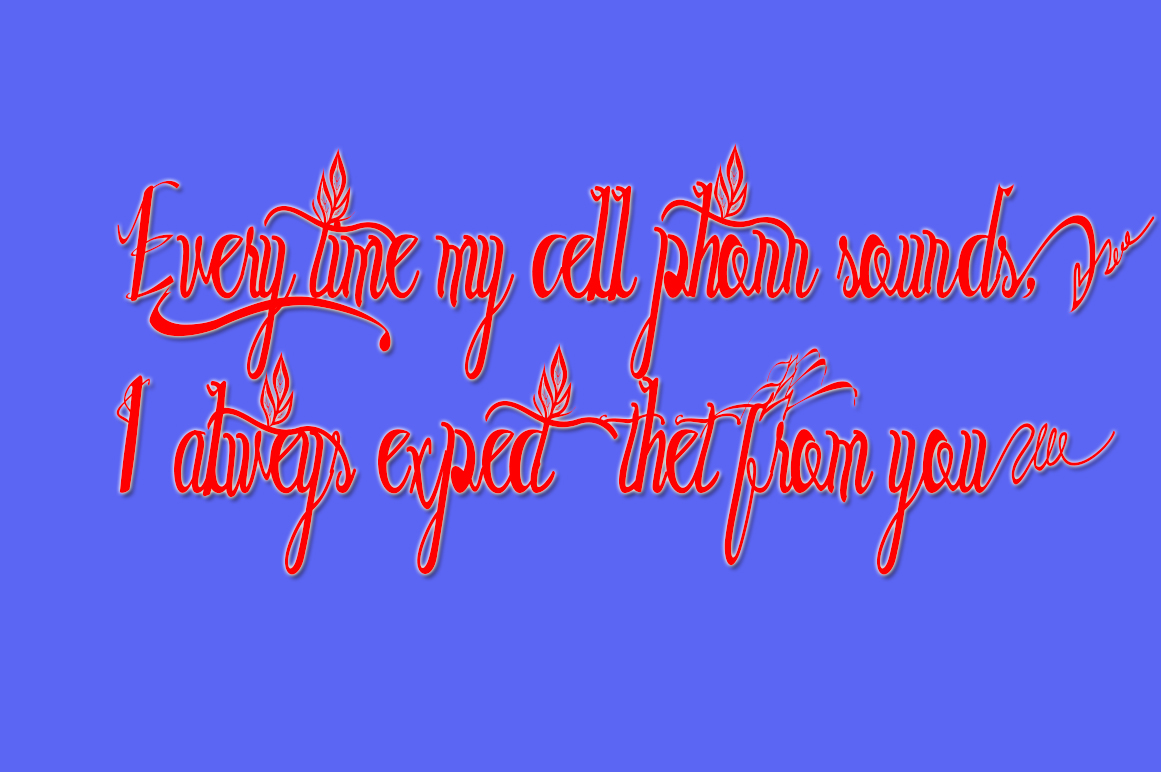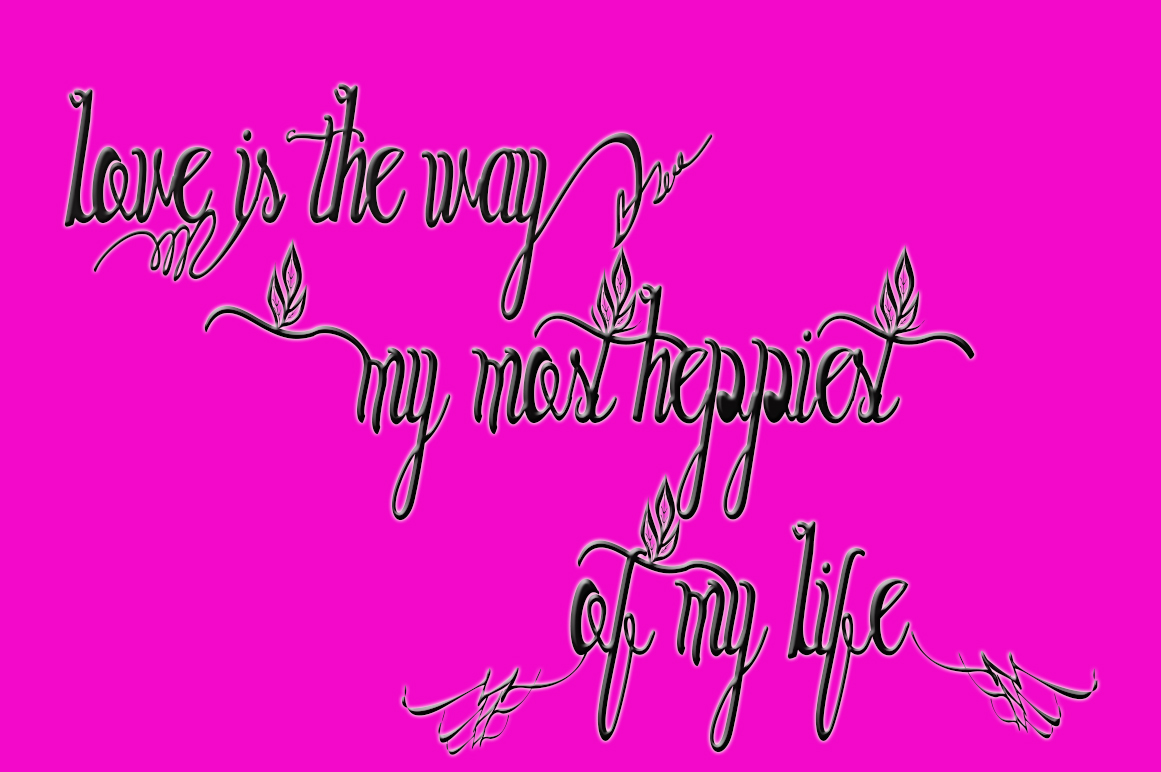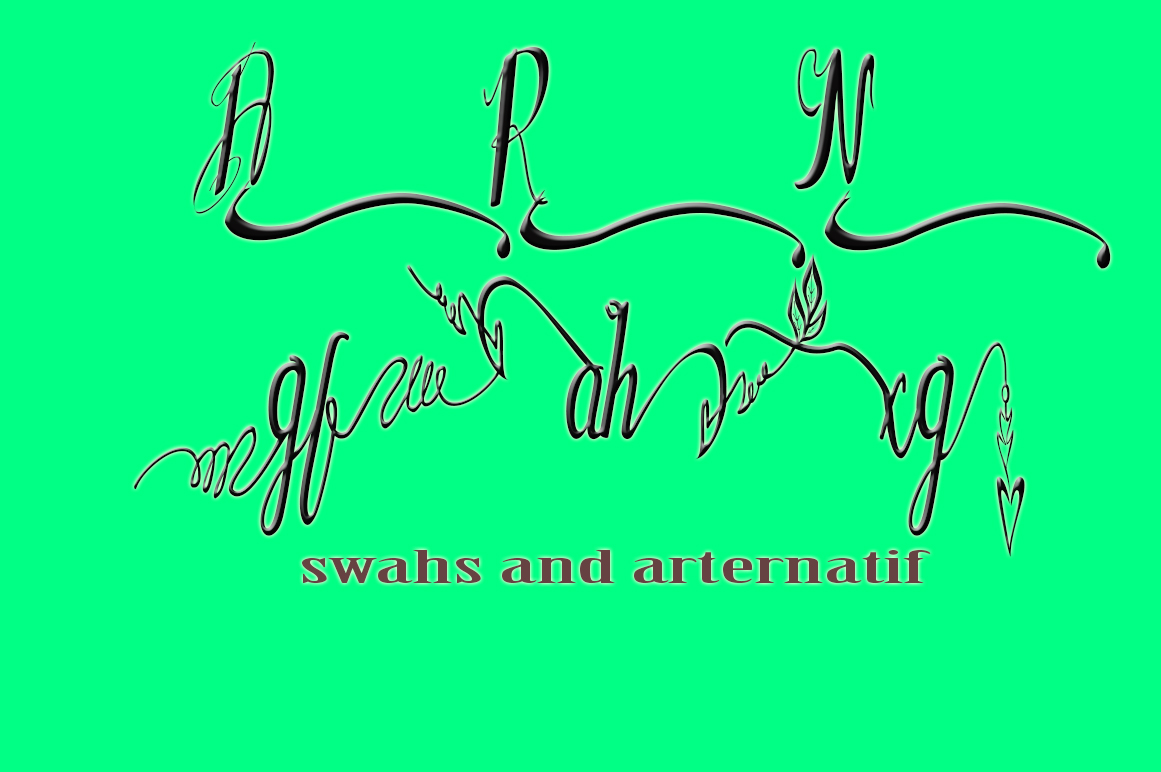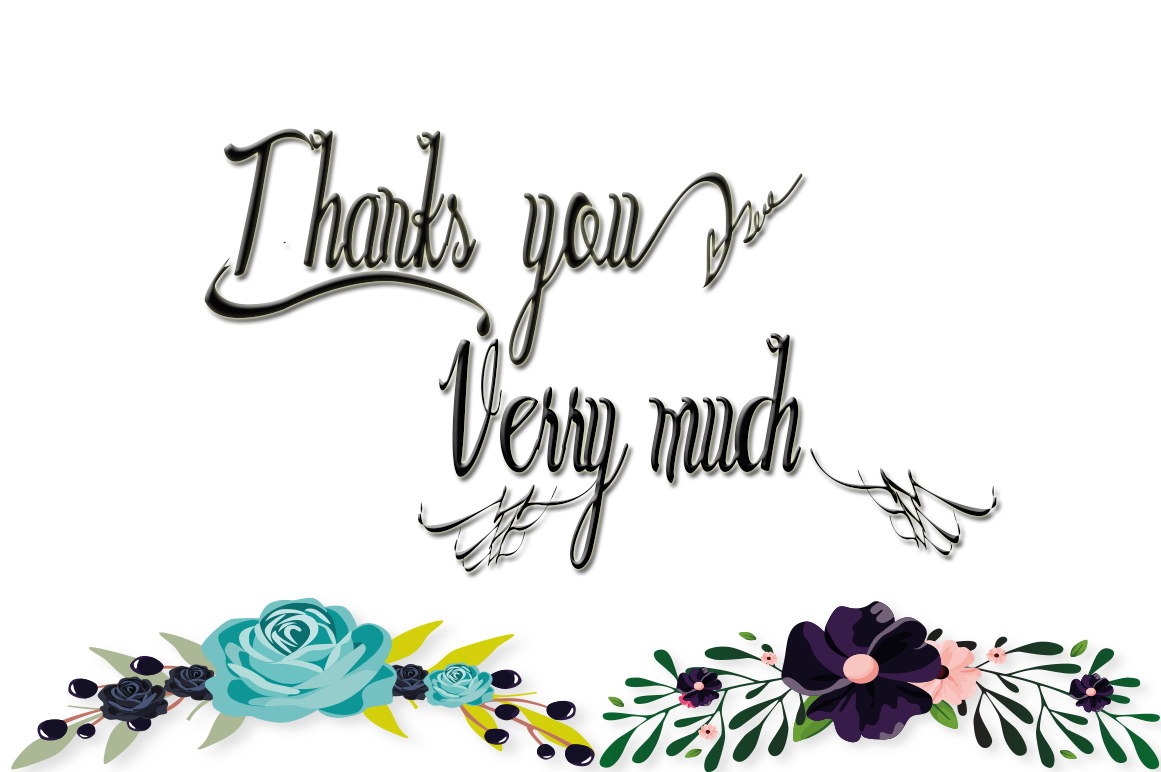
Introducing Anggita Font: A Beautiful Handwritten Script Font
Are you a designer or crafter looking for a unique and elegant font to add a personal touch to your projects? Look no further than Anggita Font, a stunning handwritten script font that is sure to impress. In this article, we’ll take a closer look at Anggita Font, its features, and how you can use it to elevate your designs.
What is Anggita Font?
Anggita Font is a carefully crafted handwritten script font that is designed to bring a touch of elegance and sophistication to your designs. With its flowing curves and delicate lines, Anggita Font is perfect for a variety of projects, from wedding invitations and stationery to branding and packaging.
Key Features of Anggita Font
• Handwritten script font: Anggita Font is a genuine handwritten script font, created with love and care to give your designs a personal touch.
• Elegant and sophisticated: With its flowing curves and delicate lines, Anggita Font exudes elegance and sophistication, making it perfect for high-end designs.
• Unique character set: Anggita Font features a unique character set, including uppercase and lowercase letters, numbers, and punctuation marks.
• Easy to read: Despite its elegant and cursive nature, Anggita Font is easy to read, making it perfect for body text and headings.
Uses of Anggita Font
Anggita Font is a versatile font that can be used for a variety of projects, including:
• Wedding invitations and stationery: Anggita Font is perfect for creating beautiful and elegant wedding invitations, stationery, and other wedding-related materials.
• Branding and packaging: With its sophisticated and elegant feel, Anggita Font is ideal for branding and packaging projects, such as logos, labels, and product packaging.
• Signage and display: Anggita Font can be used for signage and display projects, such as store signs, menus, and advertisements.
• Digital and print media: Anggita Font can be used for both digital and print media, including social media graphics, e-books, and print publications.
Tips for Using Anggita Font
Here are some tips for using Anggita Font effectively in your designs:
• Use it sparingly: Anggita Font is a elegant and sophisticated font, so use it sparingly to avoid overwhelming your design.
• Pair it with a sans-serif font: Pair Anggita Font with a sans-serif font to create a beautiful contrast and add visual interest to your design.
• Experiment with colors: Anggita Font looks great in a variety of colors, so experiment with different colors to find the one that works best for your design.